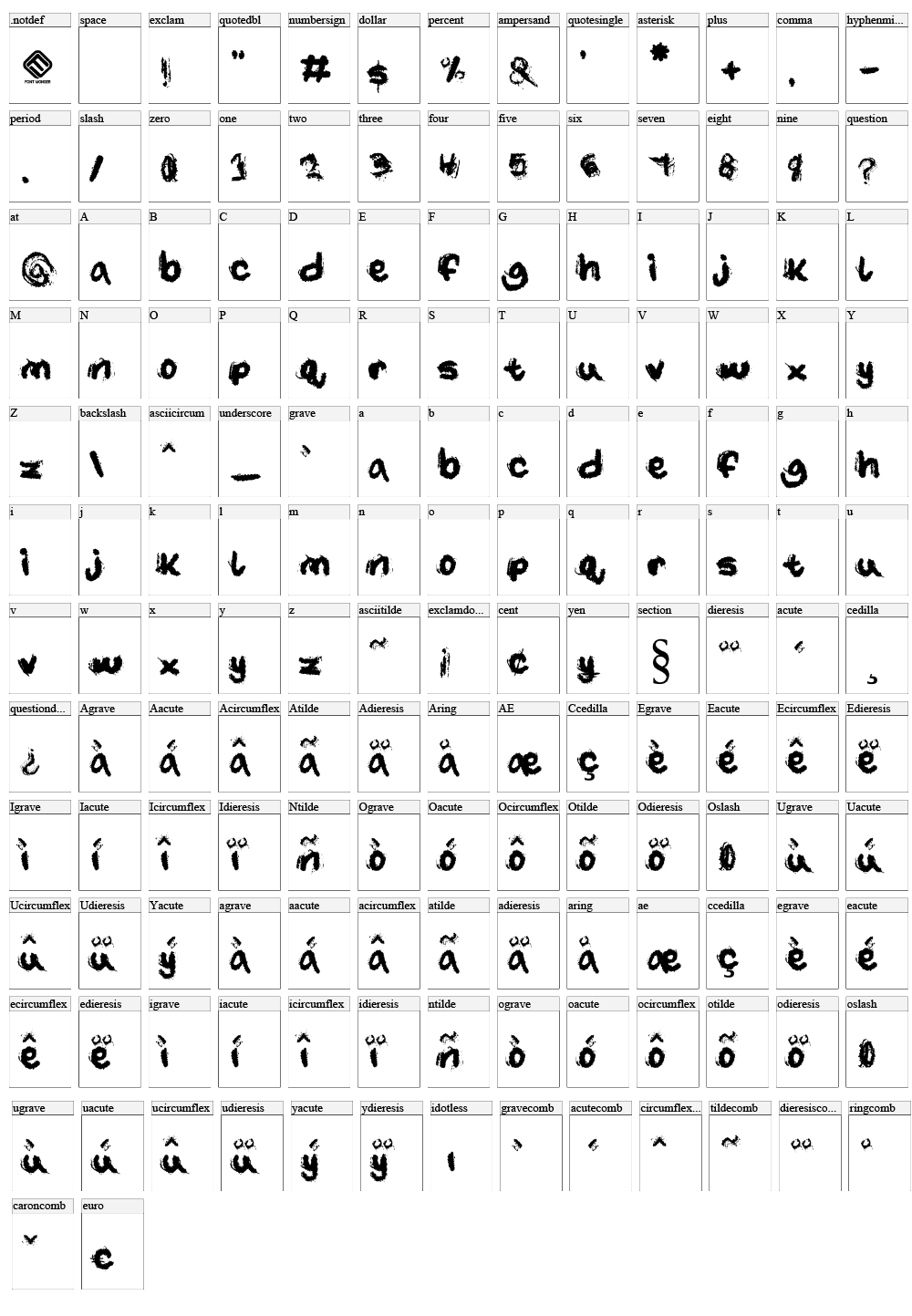
Less Dead is an eroded lowercase font with a distressed and weathered appearance that gives it a sense of authenticity and character. The rough edges and uneven lines of this font make it perfect for designs that require a gritty or vintage look, such as band logos, movie posters, or urban-themed products. Despite its distressed look, Less Dead is still highly legible and easy to read, making it a great choice for headings and short passages of text. Its organic and imperfect shapes give it a human touch that adds a sense of warmth and nostalgia to any project. If you're looking for a font that can convey a sense of history, authenticity, and character, Less Dead is a great choice.
Uppercase: Same as lowercase
Lowercase: Yes
Numbers: Yes
Symbols & Punctuation: Yes
Accents: Yes